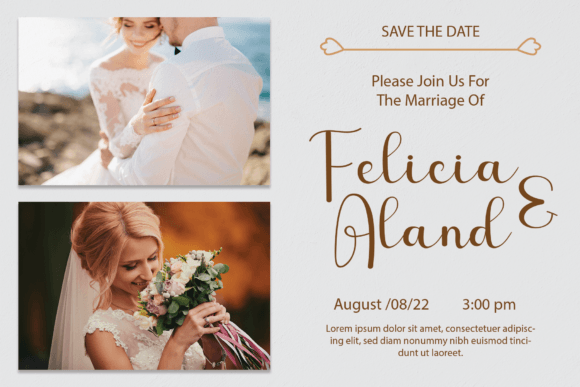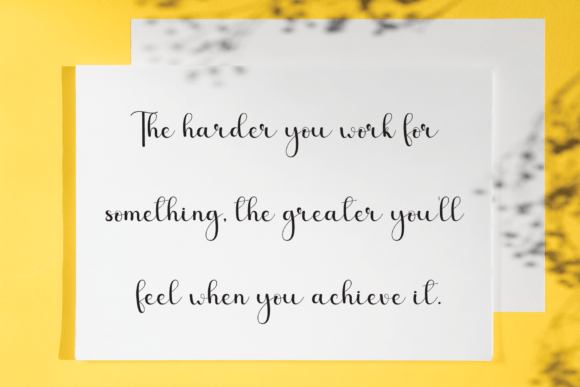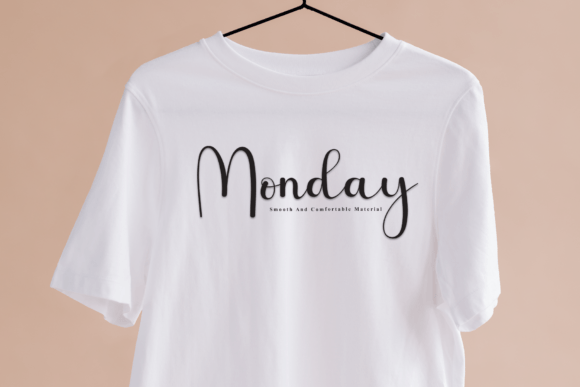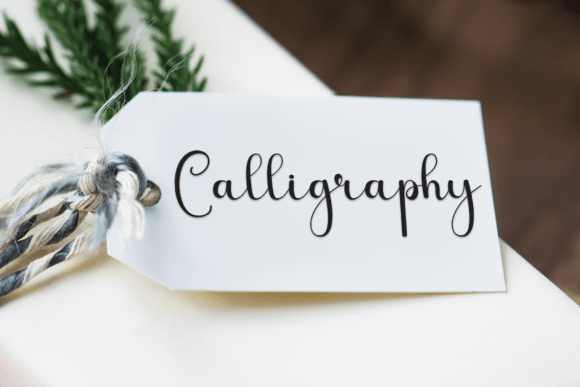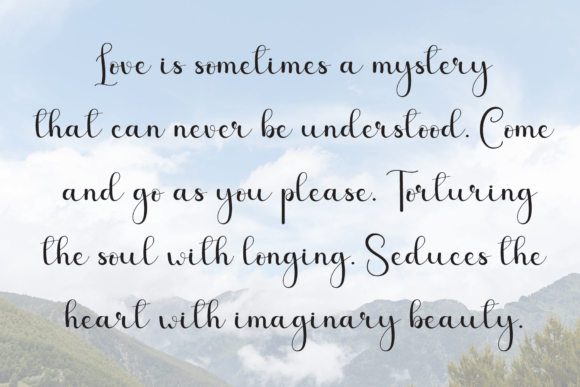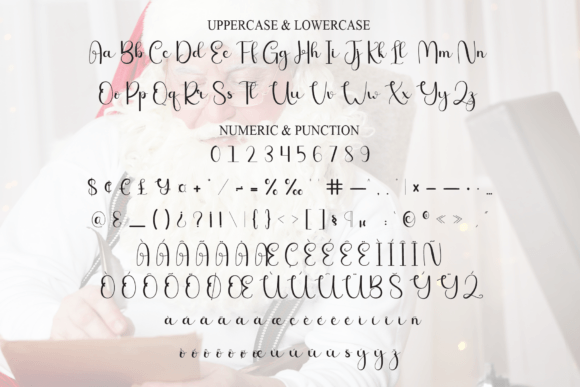
Introduction to Santa Luxurious Font Font
Fonts play a crucial role in design, and the Santa Luxurious Font font is a typeface that brings both character and versatility to any project. Whether you’re working on a branding project, a website, or a print design, the Santa Luxurious Font font offers a unique style that can elevate your work.
Discover the delightful charm of a font that radiates joy and fun.
Known as a handwritten display font, every curvature, and stroke exudes friendliness and warmth that is perfect for crafting wedding invitations, cards, and any design craving a dash of whimsy The delightful charisma of this font creates a lighthearted atmosphere, transforming each of your creations into a unique piece that spreads happiness.
Key Features of Santa Luxurious Font Font
Why Choose Santa Luxurious Font Font?
The Santa Luxurious Font font is more than just a typeface – it’s a design tool that helps you communicate your message with style and clarity. Its unique character set and versatile design make it suitable for a wide range of applications, from elegant invitations to bold headlines.
With its carefully crafted letterforms and balanced proportions, the Santa Luxurious Font font ensures readability and visual appeal across all mediums.
What makes Santa Luxurious Font font special?
The Santa Luxurious Font font stands out with its unique design, exceptional readability, and versatility across various design applications.